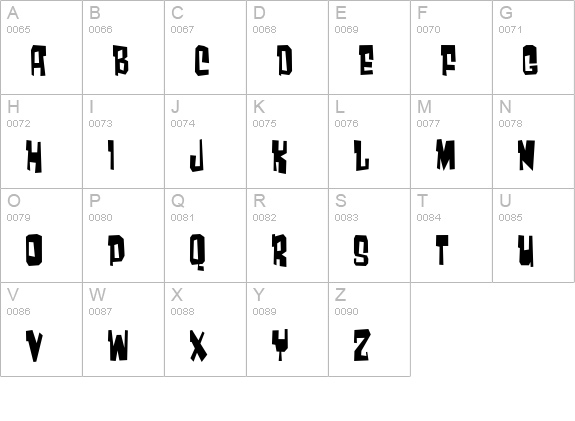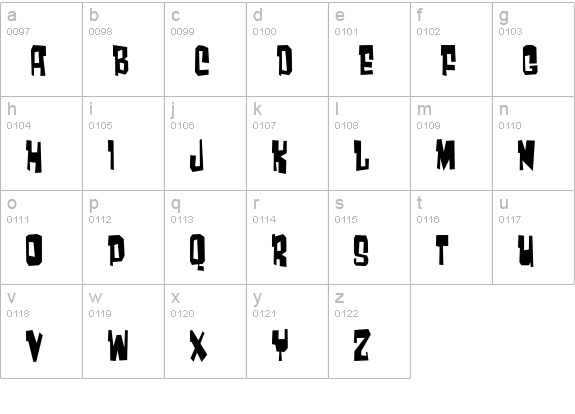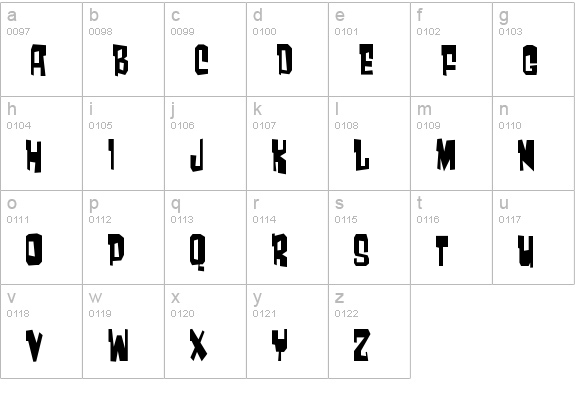
Much too loud font is a bold and eye-catching typeface that commands attention with its exaggerated thickness and unique design. Perfect for making a statement in headlines, posters, or any other creative project that demands a touch of boldness. This font is free to download at FontsMarket.com, where you can easily access and use it for your personal or commercial projects. Stand out from the crowd and add a touch of loudness to your designs with Much too loud font.